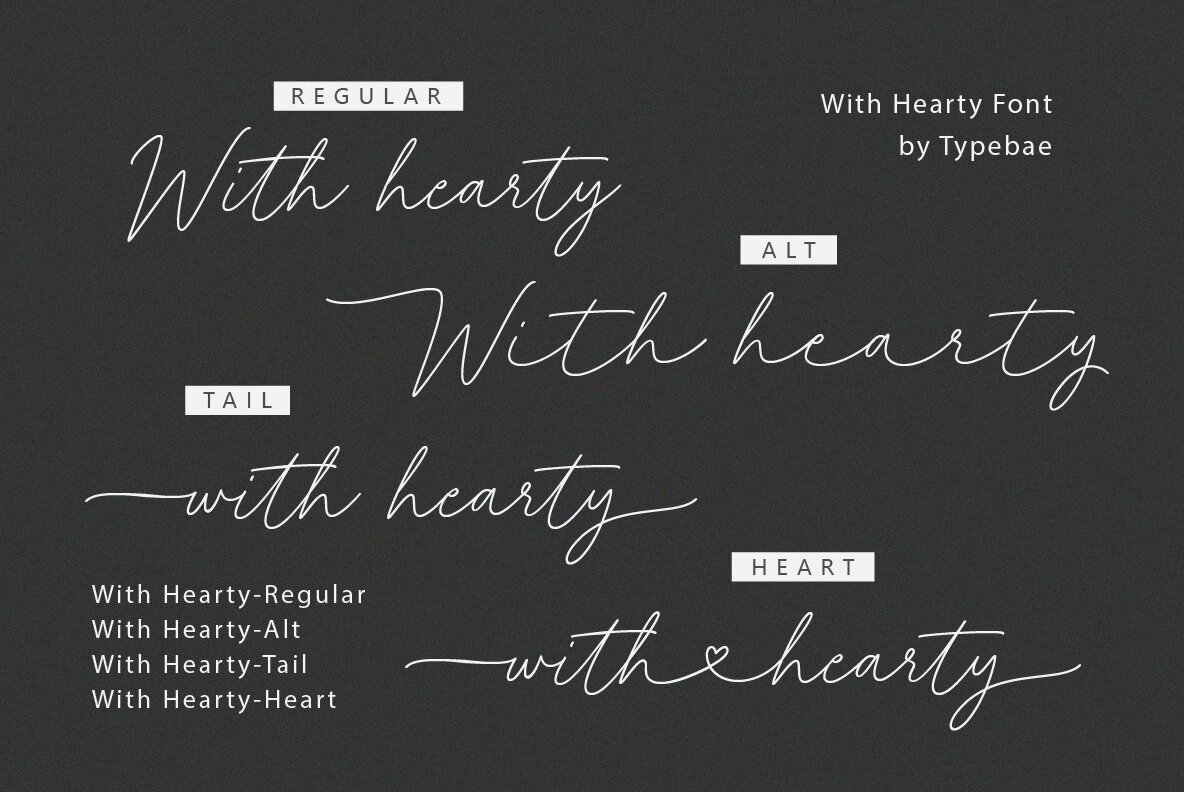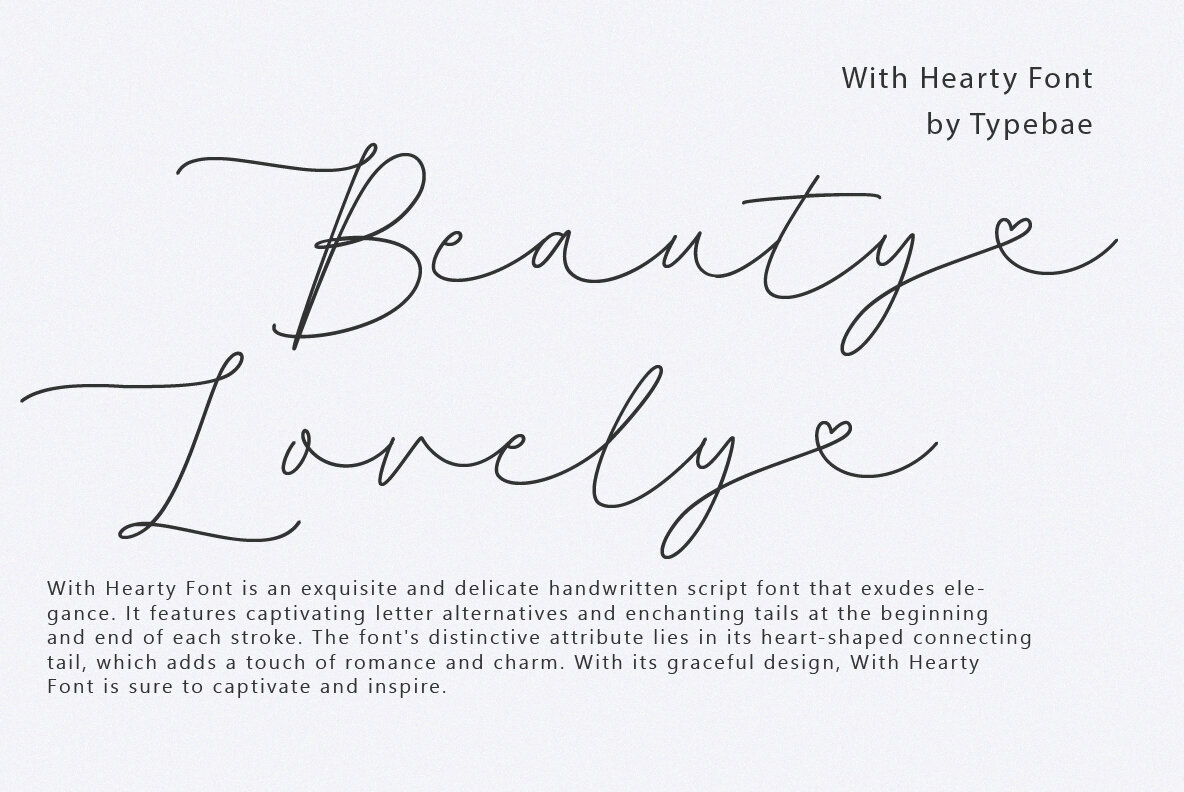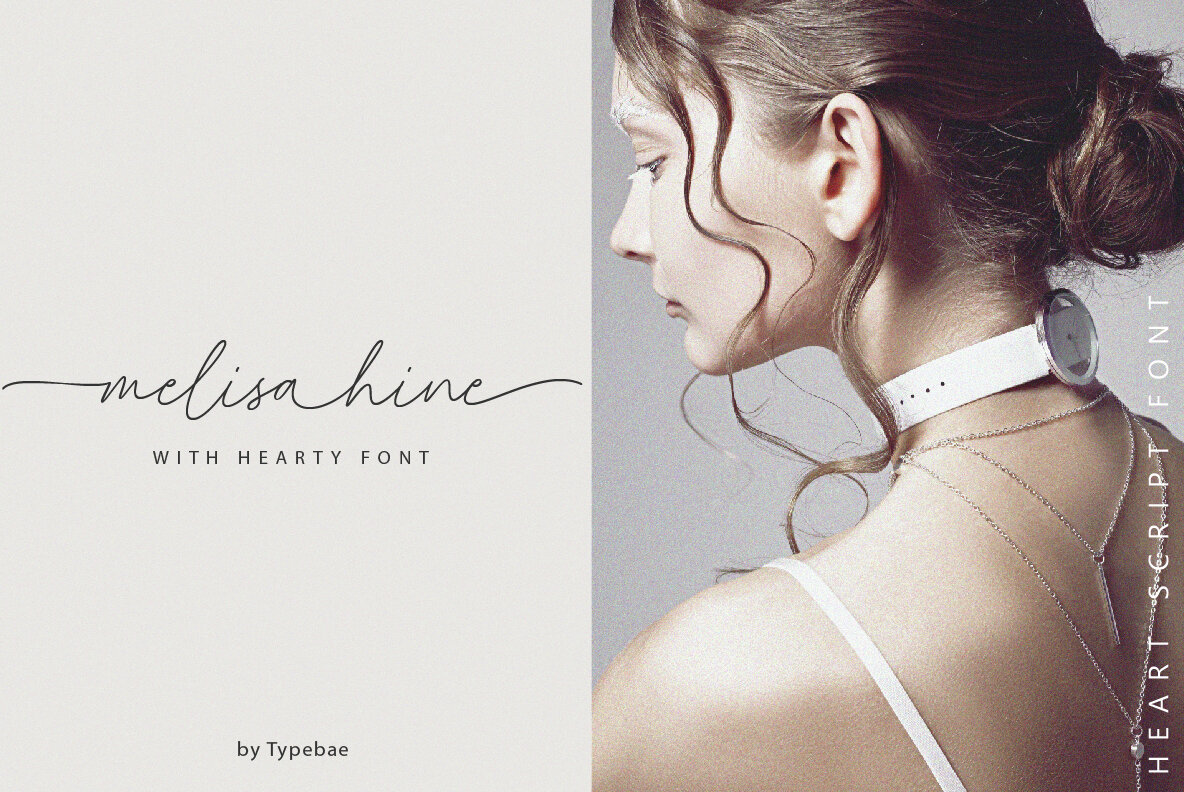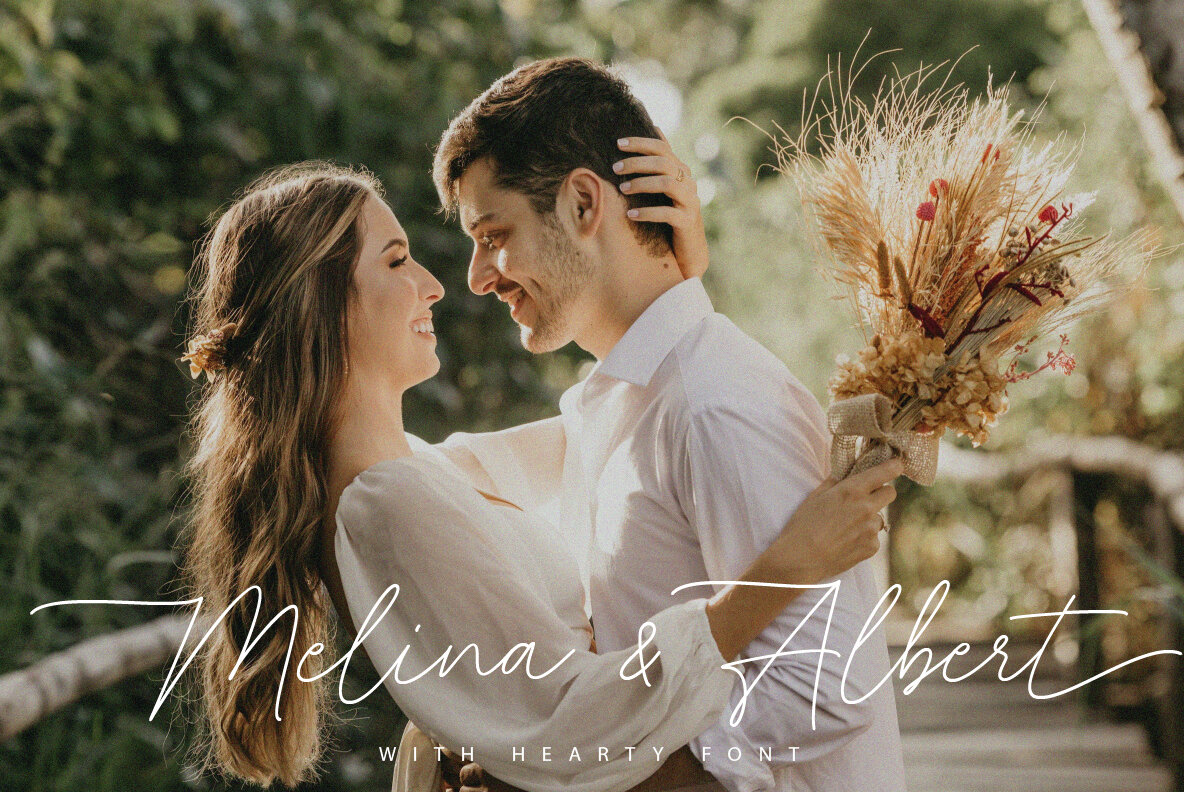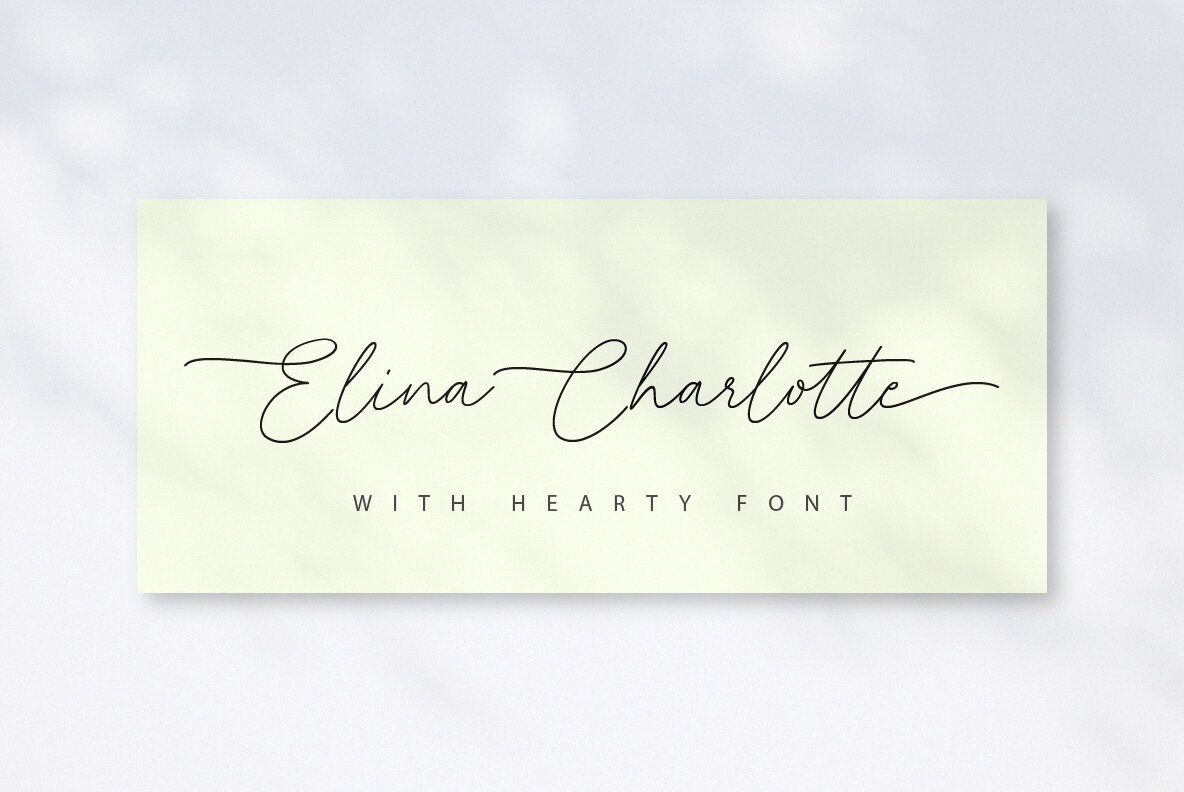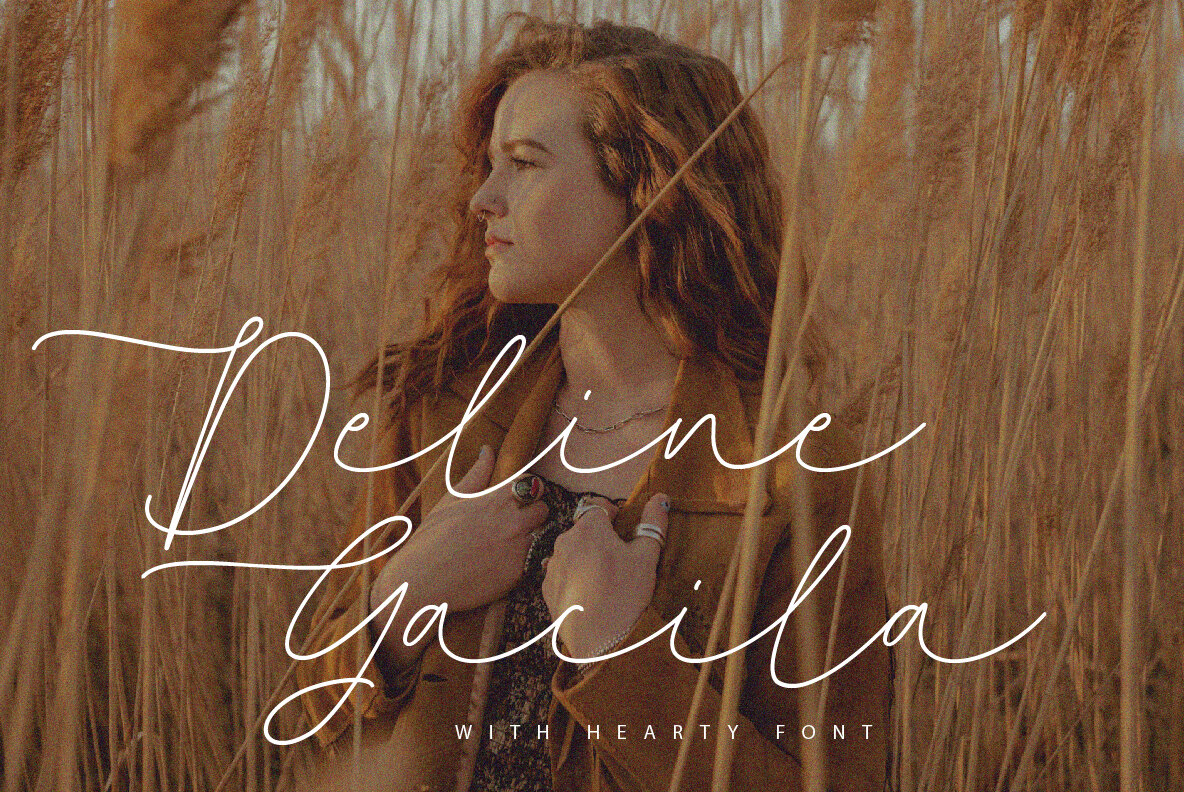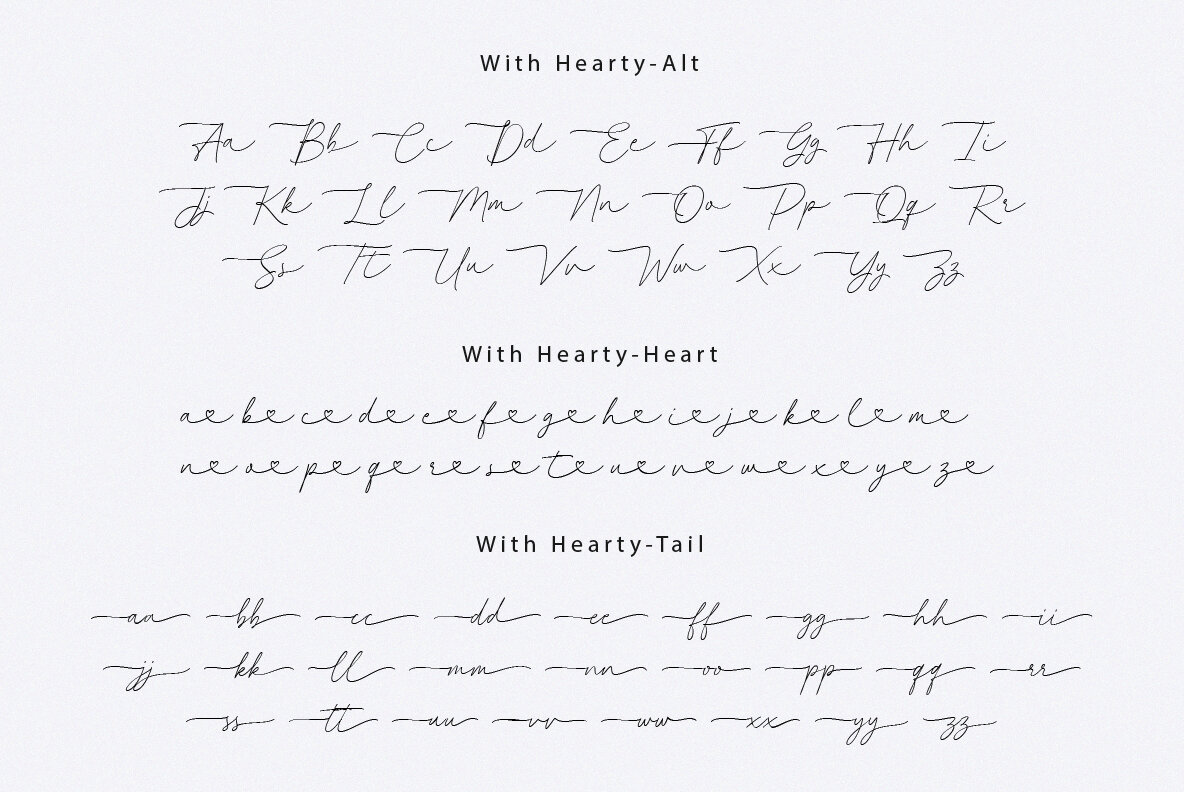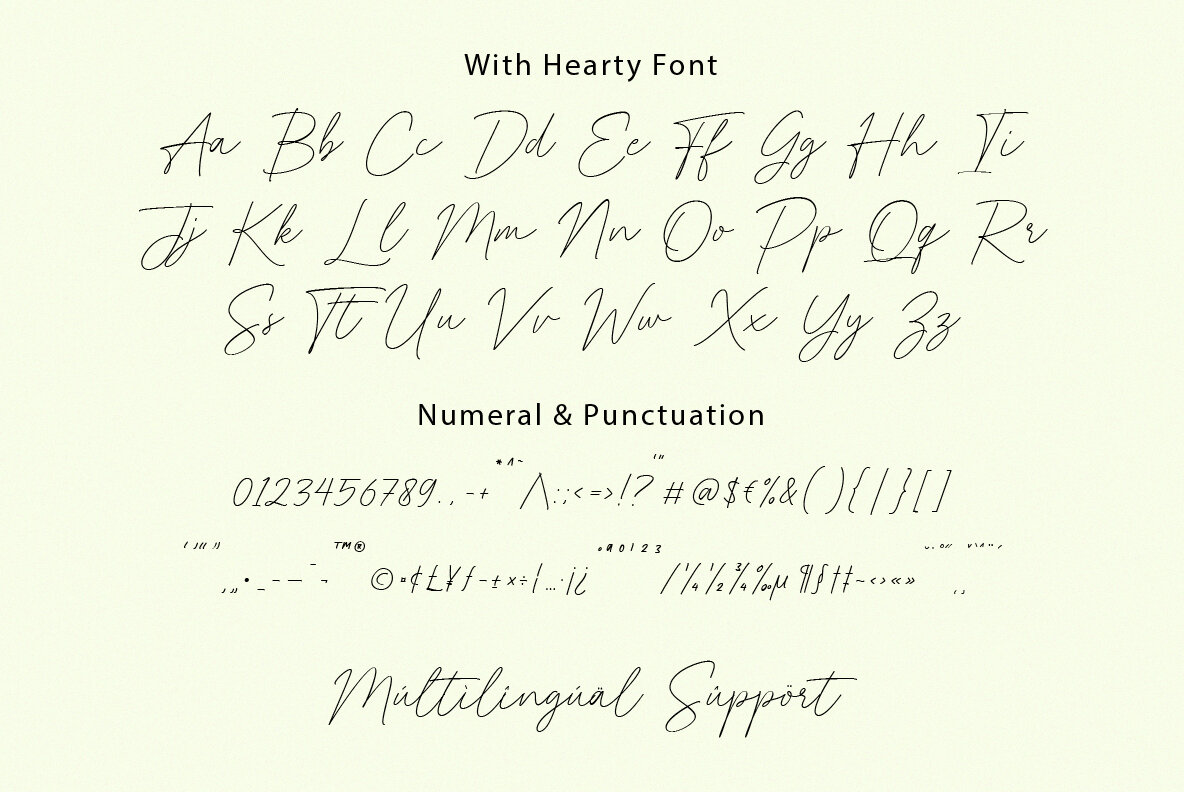
With Hearty Font
With Hearty Font is a delicate handwritten script font that effortlessly exudes elegance and charm. Its signature feature is a heart-shaped connecting tail that adds a romantic touch to its design. With captivating letter alternatives and enchanting tails at the beginning and end of each stroke, this font is designed to captivate and inspire. The easy-to-use design does not require any specialized software to access stylistic alternates, heart connectors, or swashes. With Hearty Font supports a variety of languages, including Afrikaans, Basque, Breton, Catalan, Danish, Dutch, English, Finnish, French, Gaelic (Irish, Scots), German, Icelandic, Indonesian, Irish, Italian, Norwegian, Portuguese, Saami (Southern), Spanish, Swahili, and Swedish. Explore the With Hearty Font and its enchanting features. For any questions, feel free to contact us.With Hearty: Romantic Handwritten Script Font